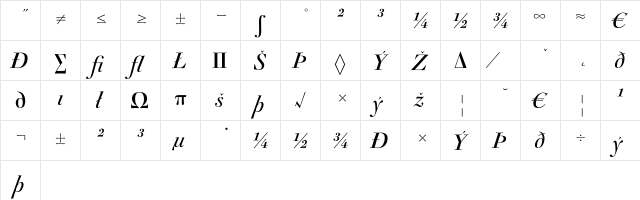
Acanthus ItalicExpert Font Preview
Acanthus ItalicExpert
Acanthus ItalicExpert Font Details
| Style | ItalicExpert |
Design Context for Acanthus Typeface
Acanthus offers clean, dependable letterforms without strong stylistic allegiance, making it a practical choice for designers who need flexibility. The dynamic lean of this cut emphasises speed and emphasis in any layout.
Pro Tip: Try Acanthus for annotation and caption copy alongside an upright companion — the contrast in angle creates a dynamic but ordered typographic system.